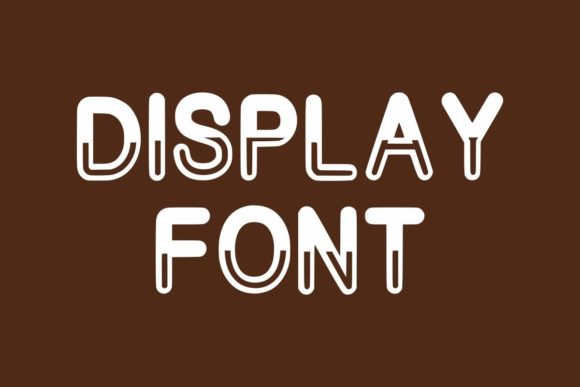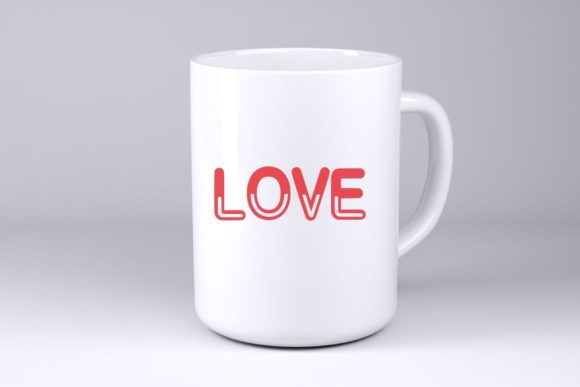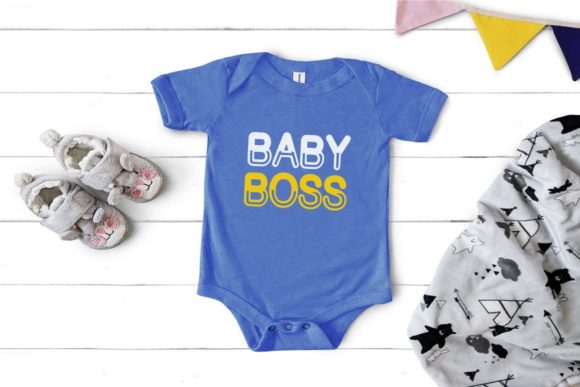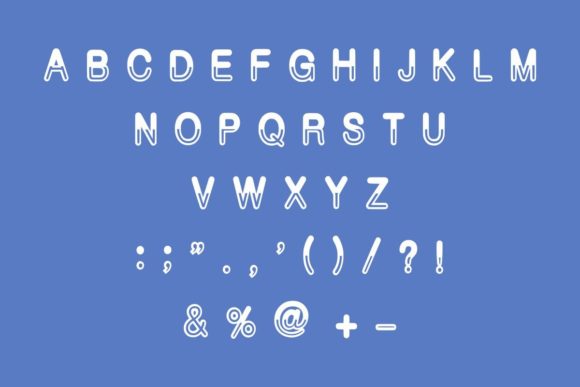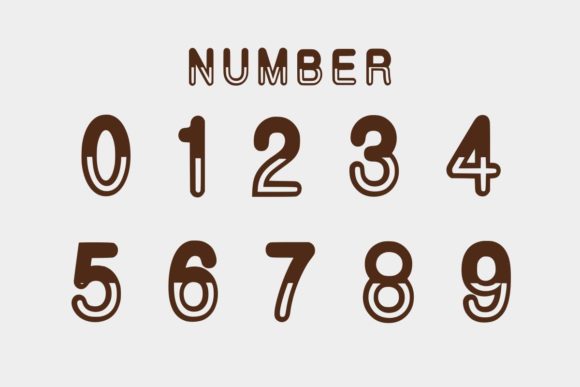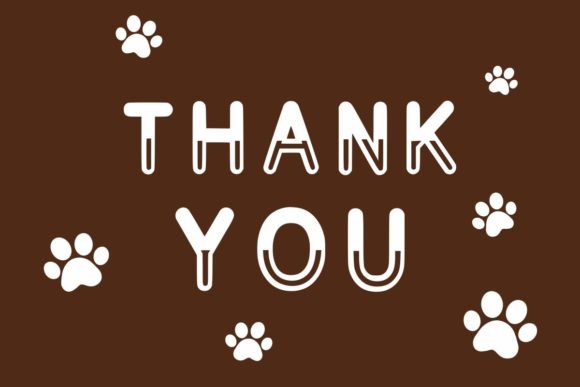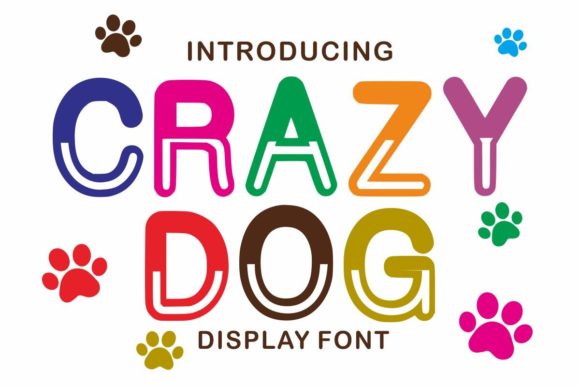
Crazy Dog Font: The Perfect Choice for Fun and Creative Designs
Are you looking for a font that can add a playful touch to your designs? Look no further than the Crazy Dog font! This bold, fun, and cute display font is perfect for a variety of creative projects, from crafts and digital designs to presentations, book covers, and greeting cards.
What Makes Crazy Dog Font So Special?
Crazy Dog is a unique and eye-catching font that is sure to grab attention. Its bold and playful design makes it perfect for creating fun and engaging designs that appeal to a wide range of audiences. Whether you’re creating a children’s book, a greeting card, or a digital design, Crazy Dog is the perfect choice.
Key Features of Crazy Dog Font
- Bold and Fun Design: Crazy Dog font has a bold and playful design that is sure to grab attention.
- Easy-to-Read: Despite its bold design, Crazy Dog font is easy to read, making it perfect for use in a variety of creative projects.
- Friend Vibe: The font has a friendly vibe that makes it perfect for creating designs that appeal to a wide range of audiences.
- Versatile: Crazy Dog font can be used in a variety of creative projects, from crafts and digital designs to presentations, book covers, and greeting cards.
Uses of Crazy Dog Font
Crazy Dog font is a versatile font that can be used in a variety of creative projects. Here are some of the ways you can use this font:
- Crafts: Crazy Dog font is perfect for use in craft projects, such as making greeting cards, scrapbooking, and other paper crafts.
- Digital Designs: The font can be used in digital designs, such as creating social media graphics, blog posts, and website headers.
- Presentations: Crazy Dog font can be used in presentations to add a playful touch and make your slides more engaging.
- Book Covers: The font can be used to create eye-catching book covers that appeal to a wide range of audiences.
- Greeting Cards: Crazy Dog font is perfect for creating fun and engaging greeting cards for special occasions.
Why Choose Crazy Dog Font?
There are many reasons why you should choose Crazy Dog font for your creative projects. Here are some of the benefits of using this font:
- Unique Design: Crazy Dog font has a unique and eye-catching design that is sure to grab attention.
- Versatile: Crazy Dog font can be used in a variety of creative projects, making it a great addition to your font library.
Tips for Using Crazy Dog Font
Here are some tips for using Crazy Dog font in your creative projects:
- Use it in Large Sizes: Crazy Dog font looks best in large sizes, so use it for headings and titles.
- Pair it with Other Fonts: The font can be paired with other fonts to create a unique and eye-catching design.
- Experiment with Colors: Try using different colors to add a playful touch to your designs.
- Use it for Kids’ Projects: Crazy Dog font is perfect for use in kids’ projects, such as children’s books and educational materials.
Crazy Dog font is a bold, fun, and cute display font that is perfect for a variety of creative projects. Its unique design, ease of use, and versatility make it a great addition to your font library. Whether you’re a designer, crafter, or DIY enthusiast, Crazy Dog font is the perfect choice for creating fun and engaging designs.